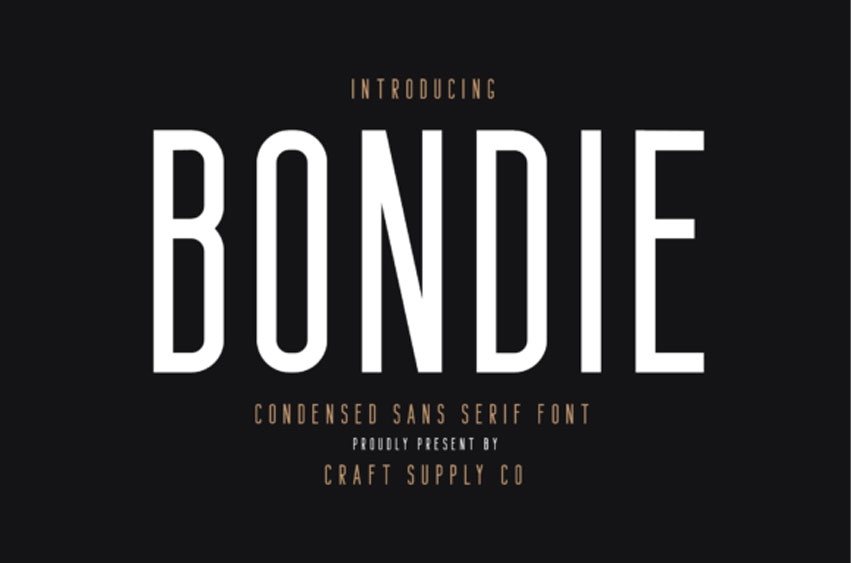
Bondie Font is an elegant condensed sans serif.
Bondie is suitable for art, modern envelope lettering or book designs, craft designs, any DIY project, book titles, weddings, and any other design that needs a pretty and trendy feel.